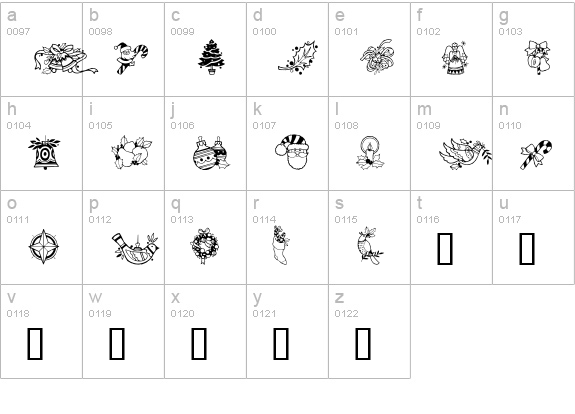
GE Christmas Joy Font Details
The GE Christmas Joy font is a whimsical and festive typeface that captures the essence of the holiday season with its cheerful and playful design. Featuring charming snowflakes and twinkling stars, this font is perfect for adding a touch of holiday magic to your projects. Whether you're creating a Christmas card, holiday party invitation, or seasonal advertisement, the GE Christmas Joy font will bring a sense of joy and merriment to your designs. Its unique style and intricate details make it stand out from other holiday fonts, making it a versatile choice for a wide range of creative projects. And the best part? The GE Christmas Joy font is free to download at FontsMarket.com, so you can easily add a festive flair to your designs without breaking the bank. Spread the holiday cheer with the GE Christmas Joy font and bring a touch of magic to your creations this holiday season.